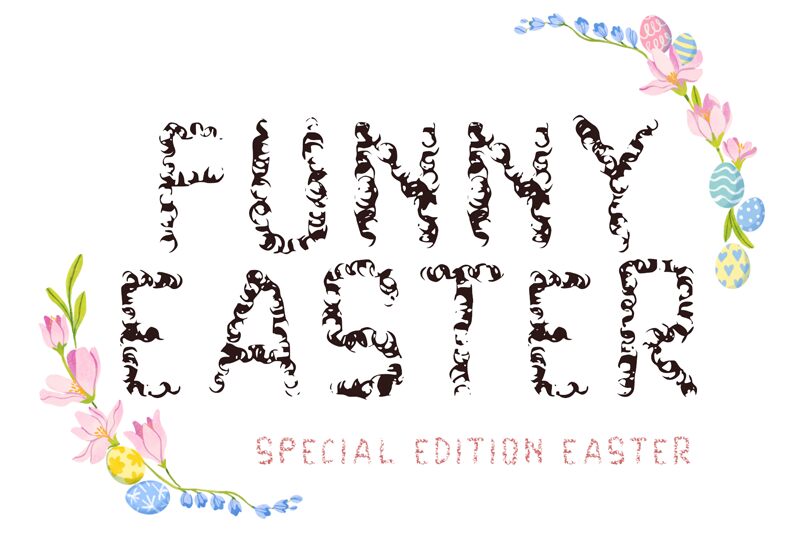
Funny Easter
"Funny Easter" is a whimsical, decorative font created by Yoga Letter. With its playful, organic curves and dynamic flourishes, this display typeface exudes a joyful, celebratory spirit. The letterforms appear to dance across the page, their flowing strokes capturing a sense of movement and festivity.
The font's distinctive style lends itself particularly well to seasonal and holiday-themed designs, from Easter greeting cards to party invitations. Its exaggerated, expressive forms would also make it an eye-catching choice for headlines, logos, and other display typography that calls for a touch of playfulness and charm. Whether used alone or paired with more traditional typefaces, "Funny Easter" has the potential to bring a sense of festive delight to a wide range of creative projects.